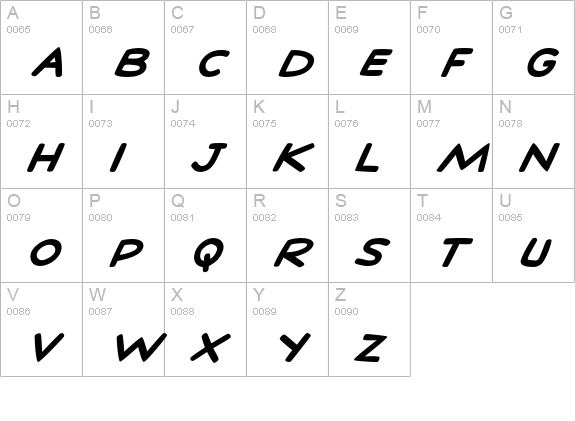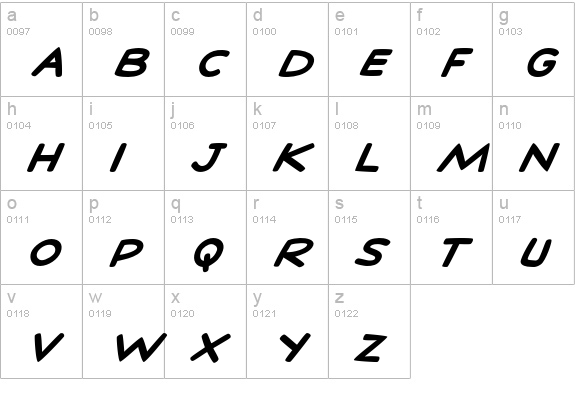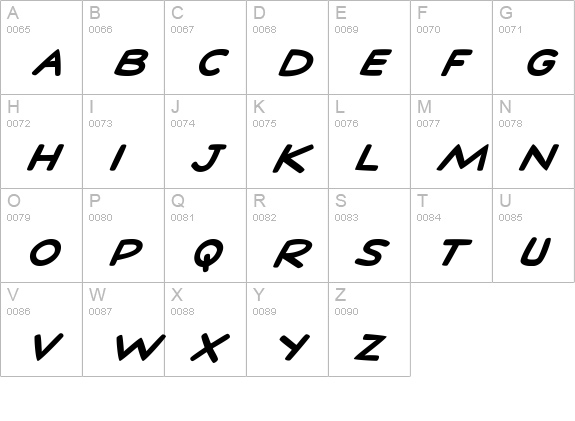
StanLee-BoldItalic Font Details
StanLee-BoldItalic is a stunning and dynamic font that captures the essence of boldness and creativity. With its unique combination of bold strokes and stylish italics, this font is perfect for adding a touch of elegance and flair to your designs. The bold and italicized characters of StanLee-BoldItalic create a strong visual impact, making it ideal for attention-grabbing headlines, eye-catching logos, and captivating posters. This font exudes confidence and sophistication, instantly elevating any design to new heights. What sets StanLee-BoldItalic apart is its versatility. Whether you're designing for print or digital media, this font adapts effortlessly to any project, from brochures and advertisements to websites and social media graphics. Its legibility remains intact even at smaller sizes, making it perfect for body text as well. But perhaps the most exciting aspect of StanLee-BoldItalic is that it is freely available to download at FontsMarket.com. That's right, you can now access this exceptional font without any cost, allowing you to unleash your creativity without any limitations. So, whether you're a graphic designer, a web developer, or simply someone who appreciates beautiful typography, StanLee-BoldItalic is a must-have addition to your font library. Download it today from FontsMarket.com and experience the power and elegance of this remarkable font. Let your designs stand out and make a bold statement with StanLee-BoldItalic.